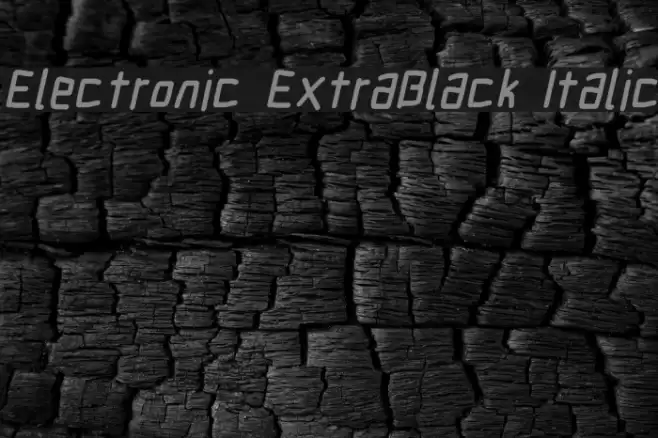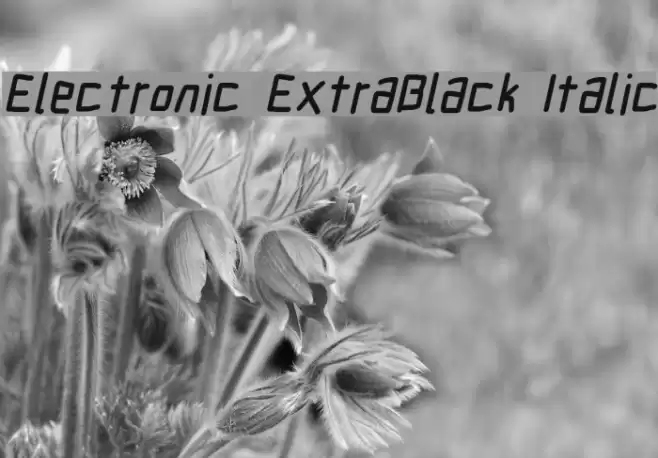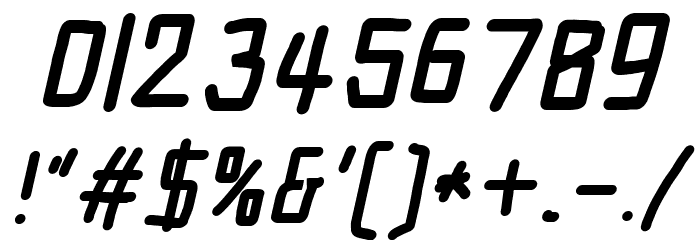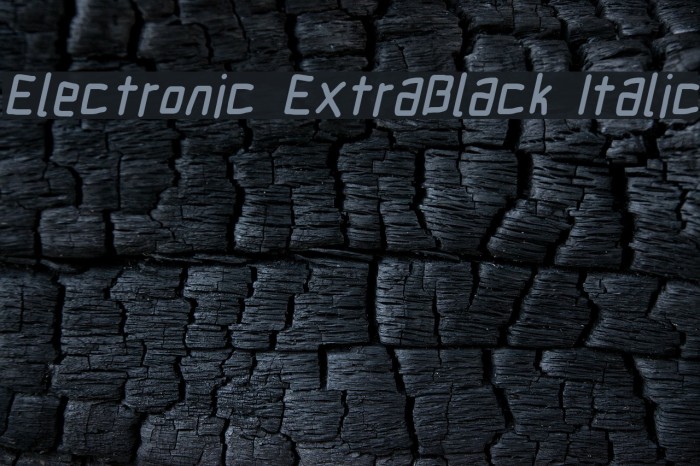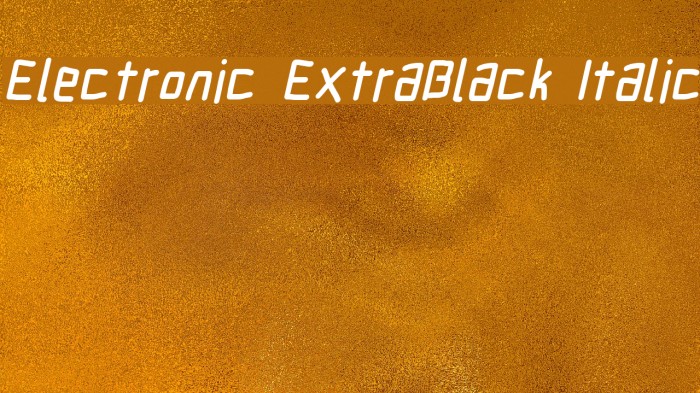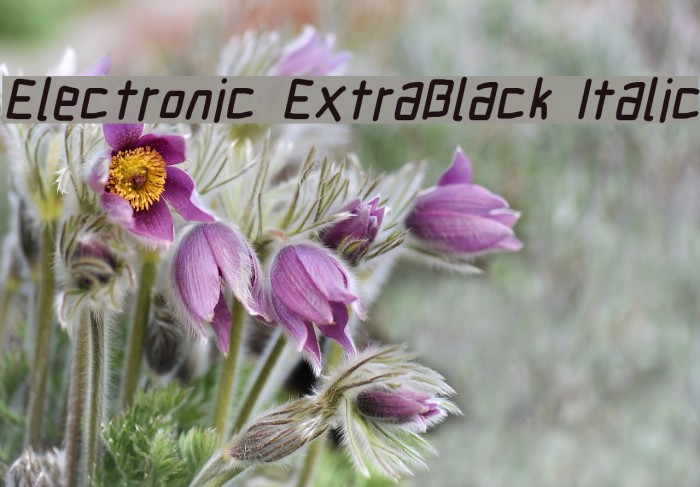
Electronic ExtraBlack Italic Font
Electronic ExtraBlack Italic Description
This font exhibits a bold and dynamic style with a distinctly modern flair. The characters are slanted, giving an italicized appearance that adds a sense of motion and energy. The strokes are thick and consistent, contributing to a strong visual impact. The design is geometric with rounded edges, which softens the overall look while maintaining a futuristic and technical feel. The spacing between characters is tight, enhancing the compact and cohesive appearance. This font is well-suited for projects that require a bold statement, such as technology branding, sports team logos, or dynamic advertising campaigns.
A bold, italicized font with a modern, geometric style and tight spacing from Uncategorized fonts.
- Proposed Projects: Ideal for technology branding, sports team logos, dynamic advertising campaigns, and futuristic designs.
- Character Spacing: Tight
- Use Case: Logos, Headlines